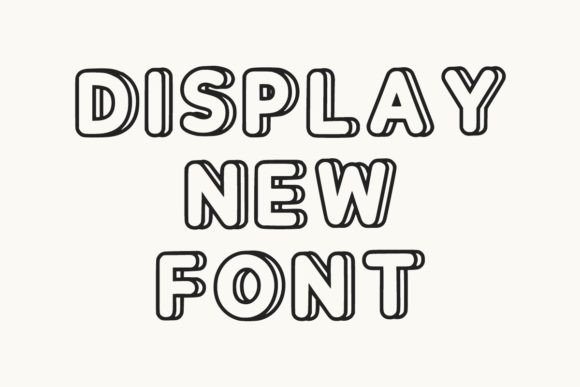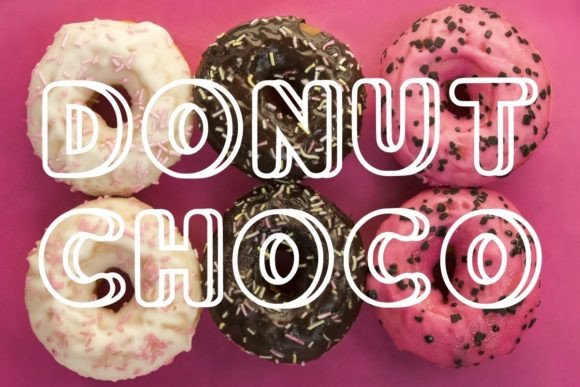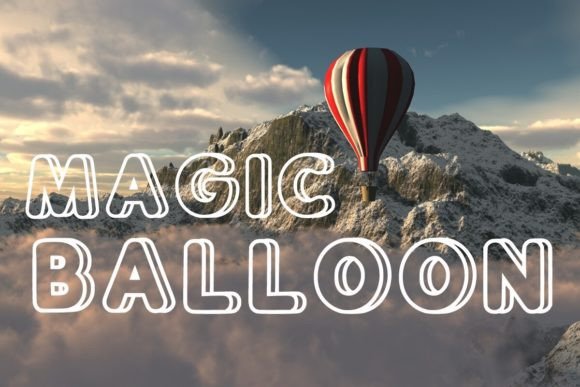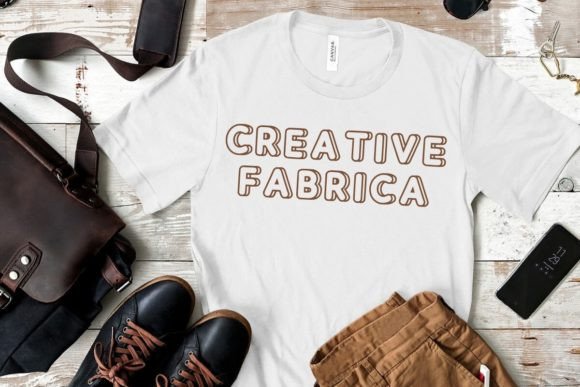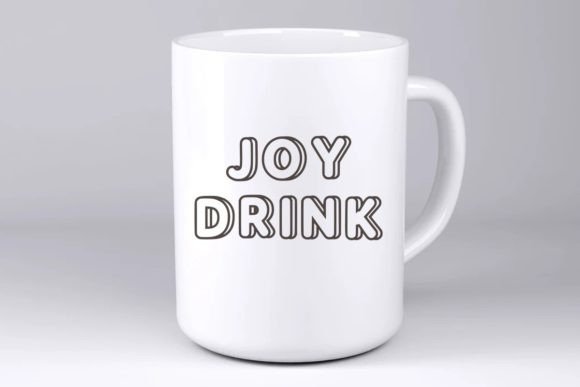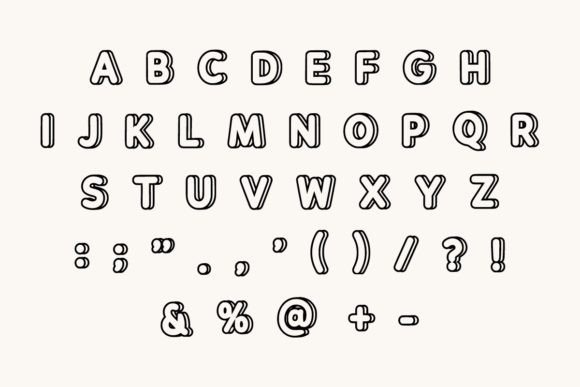
Crazy Donut Font: Add a Touch of Joy to Your Designs
Are you looking for a fun and bold font to add a touch of joy to your designs? Look no further than the Crazy Donut Font! This delightful outline display font features rounded lettering that’s perfect for creating eye-catching and playful designs. In this article, we’ll explore the features and benefits of the Crazy Donut Font, and show you how to use it to take your designs to the next level.
What is Crazy Donut Font?
Crazy Donut is a fun and bold outline display font with rounded lettering. It’s a versatile font that’s suitable for a wide range of design projects, from winter and holiday branding to product packaging, invitations, quotes, t-shirts, labels, posters, and more. The font’s playful and cheerful vibe makes it perfect for adding a touch of joy to any design.
Key Features of Crazy Donut Font
- Fun and bold outline display font: The Crazy Donut Font features a bold and playful outline design that’s sure to grab attention.
- Rounded lettering: The font’s rounded lettering gives it a friendly and approachable feel that’s perfect for designs that need a touch of personality.
- Suitable for a wide range of design projects: From winter and holiday branding to product packaging and more, the Crazy Donut Font is a versatile choice that can be used for a variety of design projects.
- Easily customizable: The font is easy to customize, allowing you to adjust the size, color, and style to fit your design needs.
Benefits of Using Crazy Donut Font
So why choose the Crazy Donut Font for your designs? Here are just a few benefits of using this fun and playful font:
- Adds a touch of joy to your designs: The Crazy Donut Font is sure to bring a smile to your audience’s face with its playful and cheerful vibe.
- Perfect for winter and holiday designs: The font’s winter and holiday-themed design makes it perfect for creating seasonal branding, packaging, and marketing materials.
- Great for designs that need a playful touch: Whether you’re designing for a kids’ brand or creating a fun and playful design for a food or beverage company, the Crazy Donut Font is a great choice.
- Easy to read and understand: Despite its playful design, the Crazy Donut Font is easy to read and understand, making it perfect for use in a variety of design projects.
How to Use Crazy Donut Font in Your Designs
Using the Crazy Donut Font in your designs is easy! Here are a few tips to get you started:
- Pair it with a bold color scheme: The Crazy Donut Font looks great when paired with a bold and bright color scheme. Try pairing it with a fun and playful color like red, pink, or blue.
- Use it for headlines and titles: The font’s bold and playful design makes it perfect for use in headlines and titles.
- Add some texture and patterns: To give your design an extra boost of personality, try adding some texture and patterns to your design.
- Experiment with different sizes and styles: Don’t be afraid to experiment with different sizes and styles of the Crazy Donut Font to find the perfect look for your design.
Design Ideas Using Crazy Donut Font
The Crazy Donut Font is a versatile choice that can be used for a wide range of design projects. Here are a few ideas to get you started:
- Winter and holiday branding: Use the Crazy Donut Font to create fun and playful winter and holiday branding, including logos, packaging, and marketing materials.
- Kids’ designs: The font’s playful and cheerful vibe makes it perfect for use in kids’ designs, including children’s books, toys, and games.
- Food and beverage packaging: The Crazy Donut Font is a great choice for food and beverage packaging, particularly for brands that want to add a touch of fun and playfulness to their designs.
- Invitations and greeting cards: Use the font to create fun and playful invitations and greeting cards for special occasions.
The Crazy Donut Font is a fun and bold outline display font that’s perfect for adding a touch of joy to your designs. With its rounded lettering and playful vibe, it’s a versatile choice that can be used for a wide range of design projects. Whether you’re designing for winter and holiday branding, kids’ designs, or food and beverage packaging, the Crazy Donut Font is a great choice. So why not give it a try and see how it can add a touch of joy to your designs?